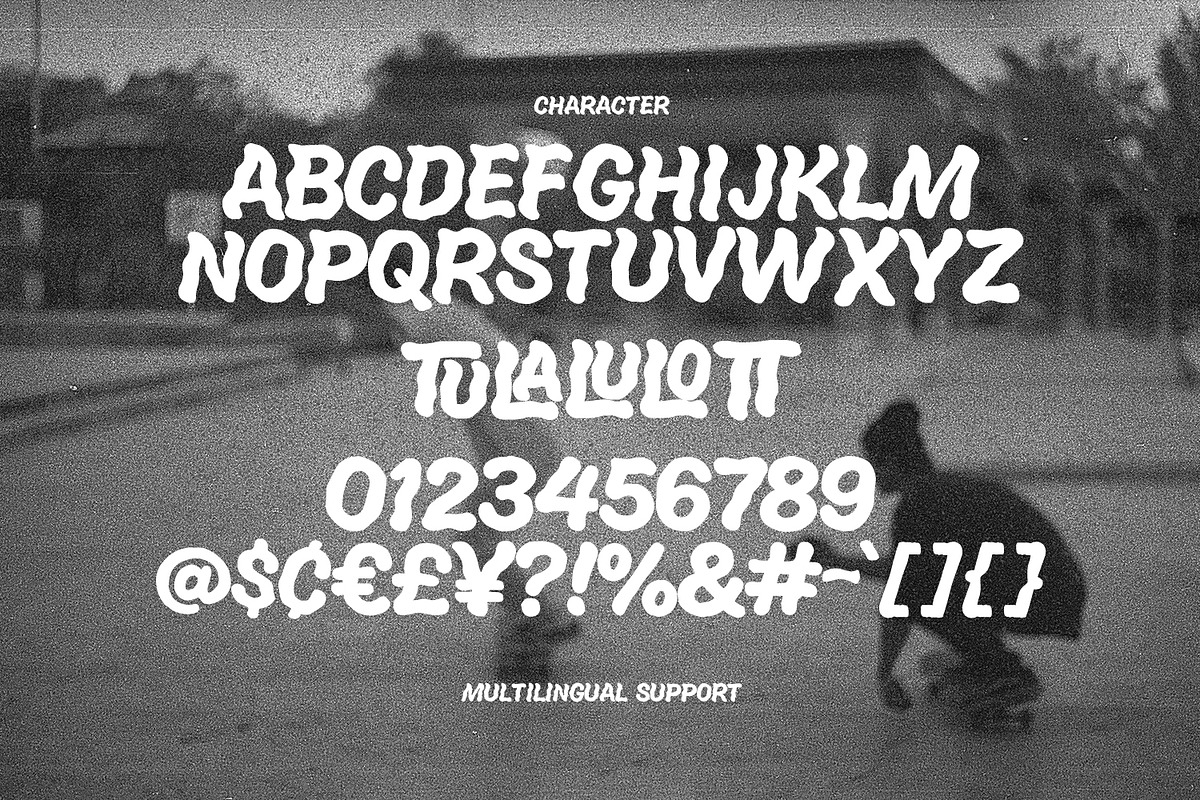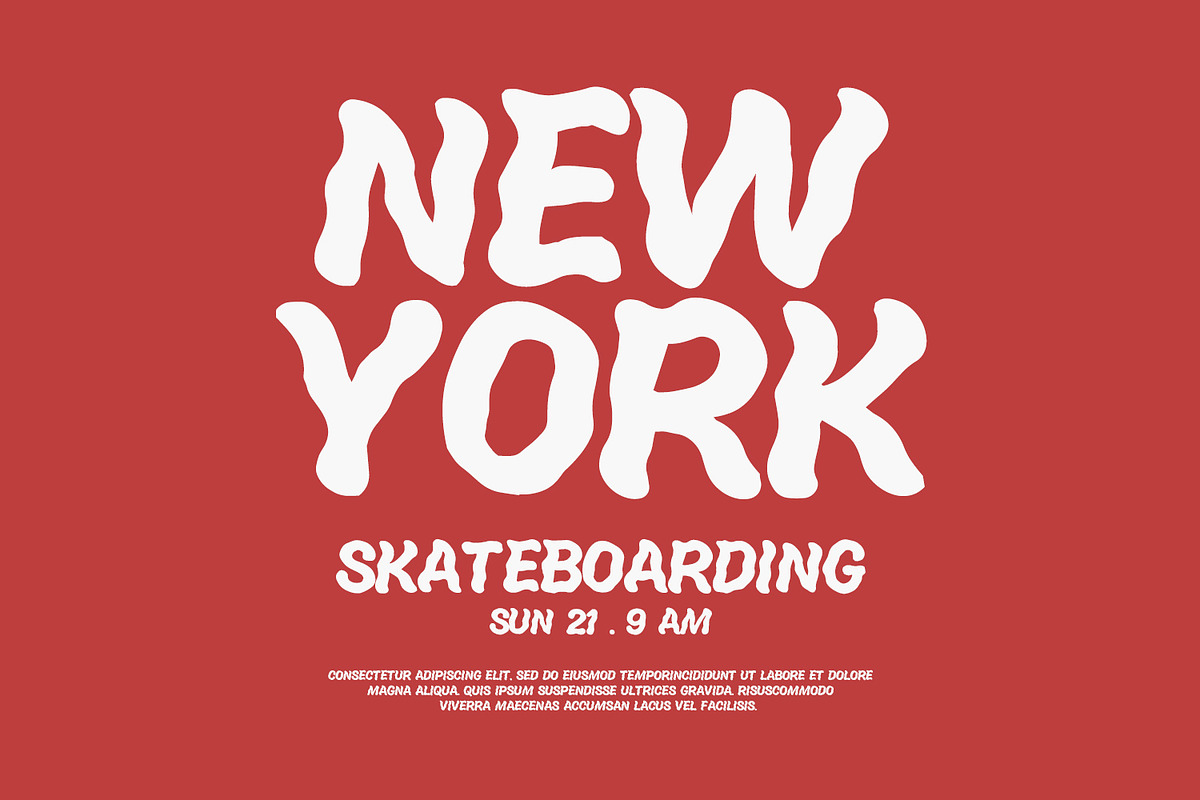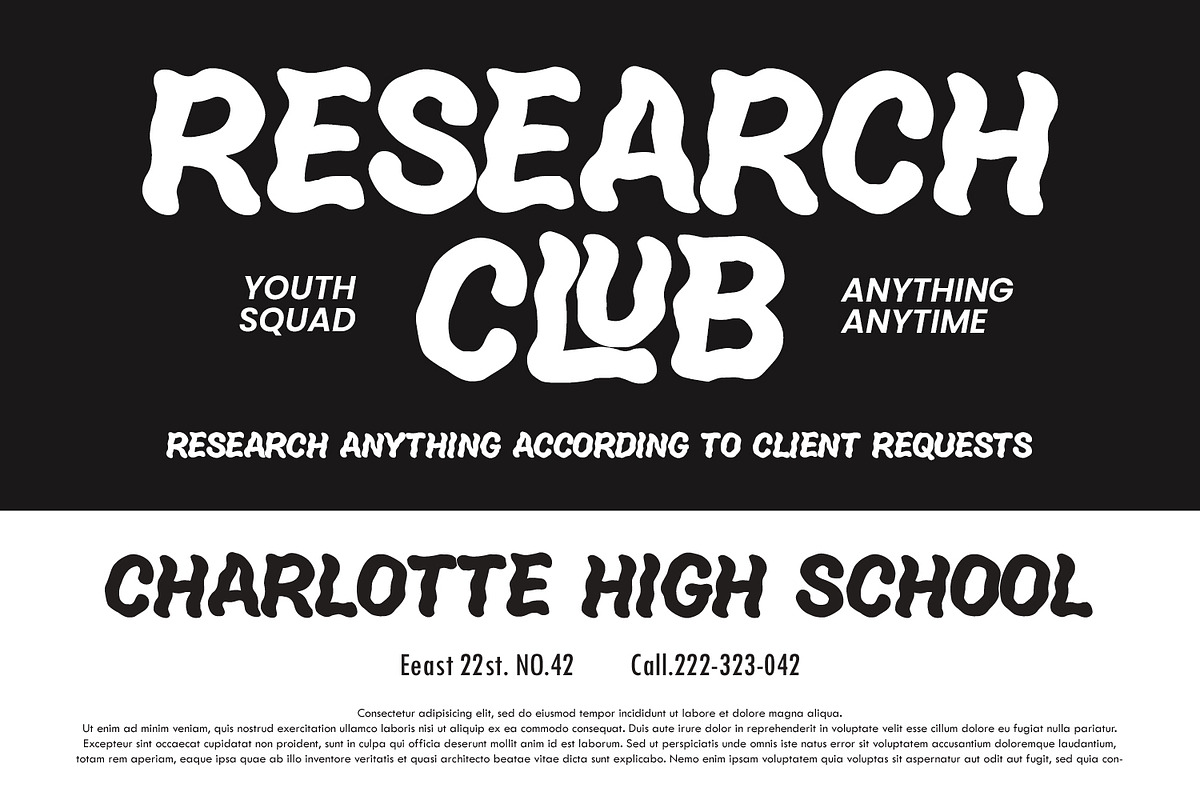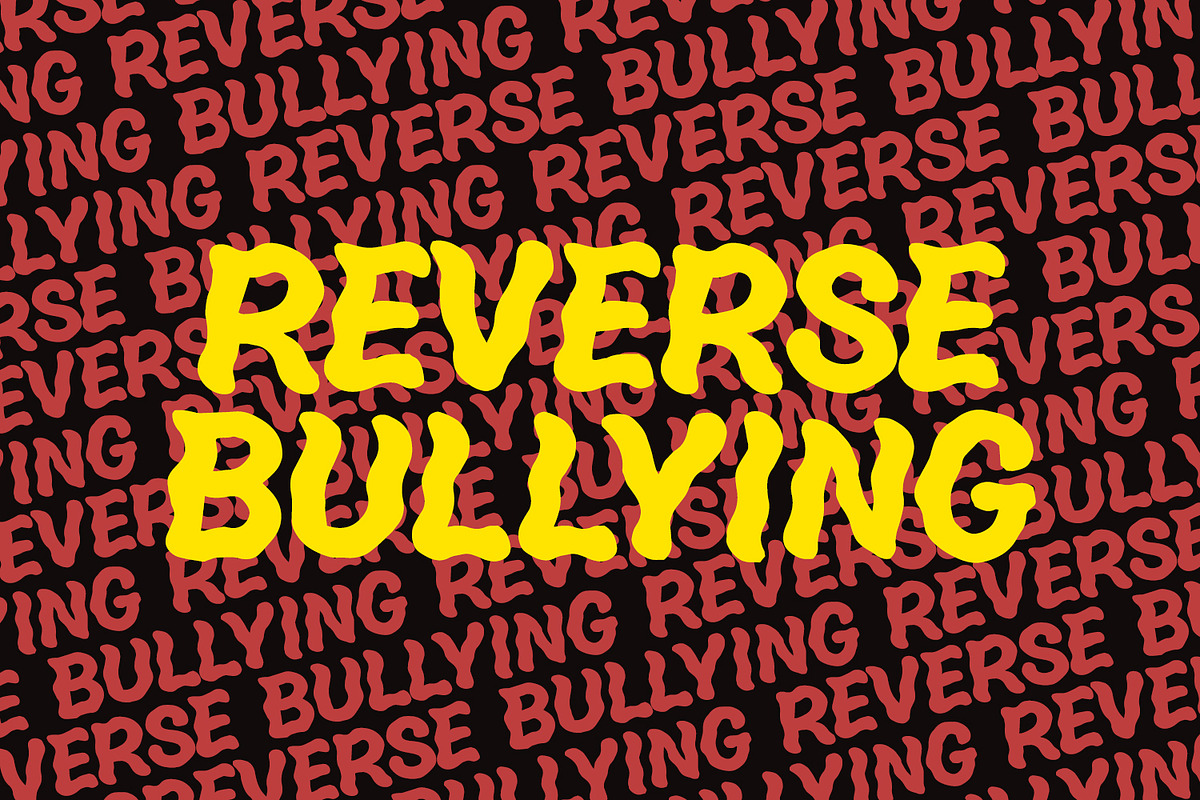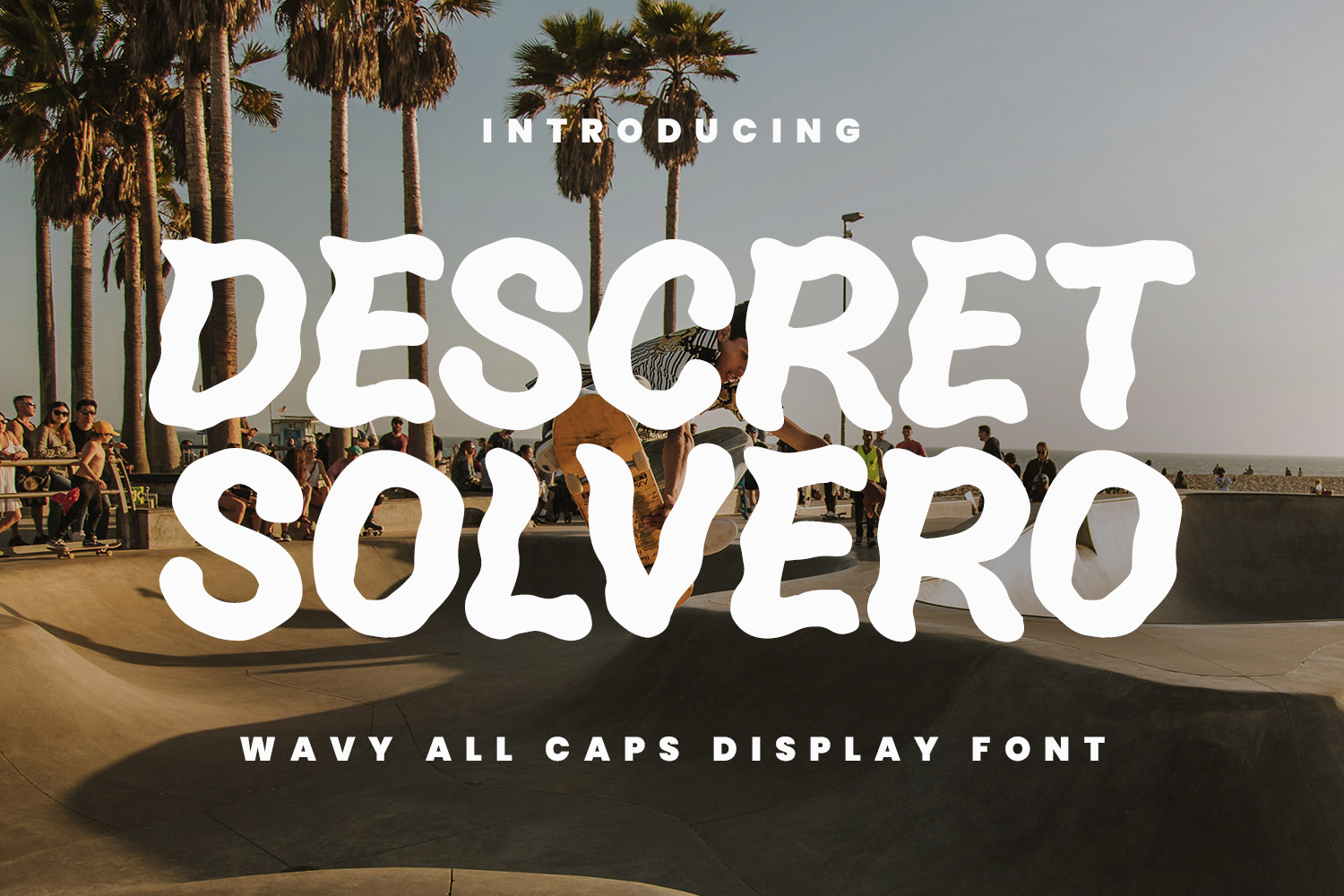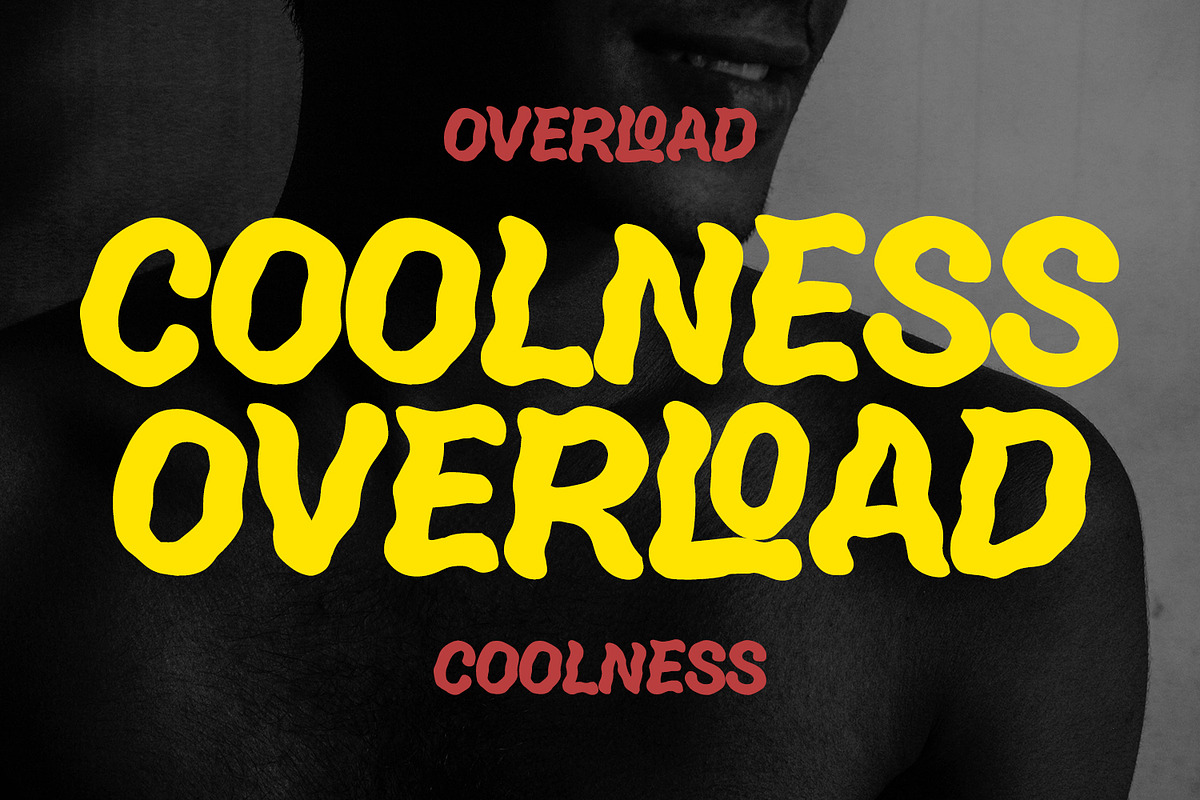
Descret Solvero Wavy All Caps Fonts
Descret Solvero is a bold, energetic display font designed to make a statement. Characterized by its fluid, liquid like silhouettes and wavy aesthetic, this typeface captures a sense of movement and retro modern coolness. It breaks away from rigid structures, offering a hand drawn, psychedelic vibe that is both playful and impactful.
Key Visual Characteristics:
- Wavy & Distorted: Every character features organic, undulating edges that mimic a melting or underwater effect, giving it a unique psychedelic flair.
- Heavyweight Impact: The thick, bold strokes ensure high visibility, making it perfect for headlines and large-scale designs.
- All-Caps Versatility: Designed exclusively in uppercase, it maintains a consistent visual rhythm and a loud personality across all platforms.
- Retro Skate Aesthetic: As seen in the promotional imagery, the font pairs perfectly with street culture, skateboarding brands, and Y2K-inspired graphics.
- Character Set: Uppercase letters that play perfectly together.
- Unique Ligatures: Specialized ligatures to add a custom, hand lettered feel to your text.
- Numbers & Punctuation: A complete set of numerals and symbols for professional use.
- Multilingual Support: Ready for global design needs.
- Perfect for: Logos, Branding, Graphic designs, Quote graphics, Magazine headers, and Retro themed invitations.